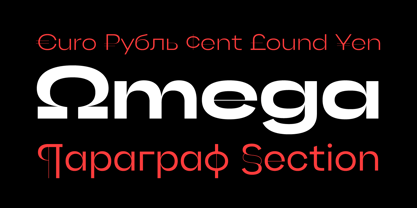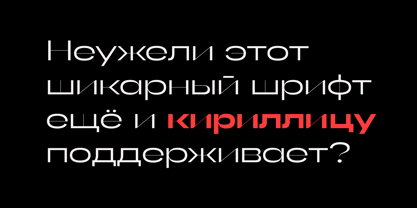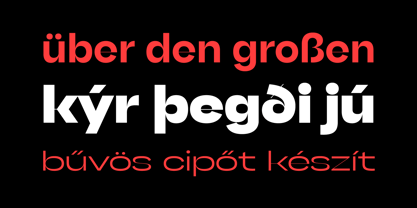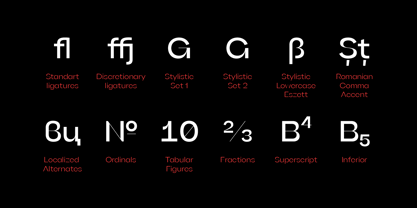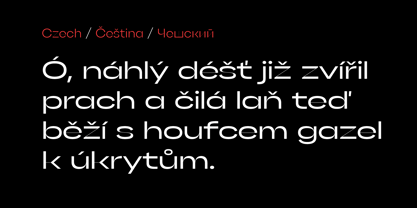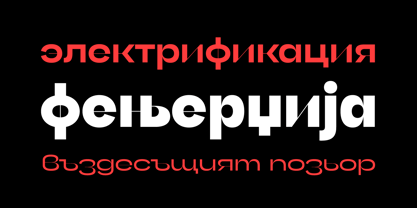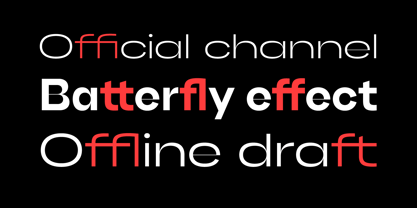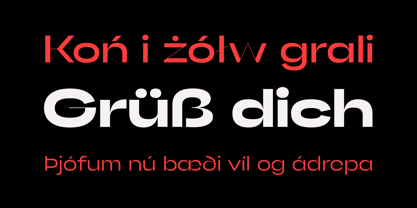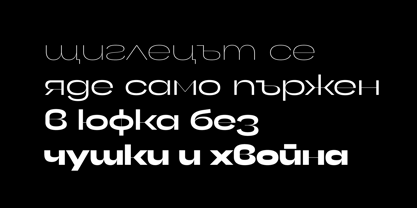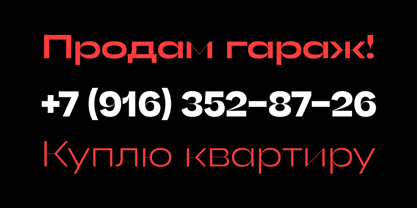
Gella Display
La familia tipográfica Gella Display fue diseñada por Slava Antipov y publicada por Slava Antipov. Gella Display contiene 40 estilos y opciones de paquete familiar.
Gella Display is a sans serif display typeface family with internal high contrast. It consists of 40 styles (10 weights × 4 widths). The multitude of styles makes Gella Display a versatile typeface, suitable for both large blocks of text and for headlines, logos, packaging, branding, presentations, and more.
Gella Display supports Latin and Cyrillic scripts, and includes various OpenType features such as ligatures, stylistic alternates, fractions, and others.